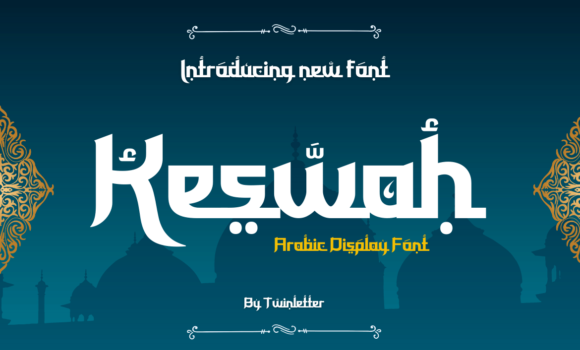
keswah
Keswah Font - Featured Image
Keswah Font – Free Download Introduction to Keswah Font Keswah is a calligraphic display font inspired by the heritage of Middle Eastern typography. 📸 Preview Gallery 6 images 📌 Product Name Keswah Font 👤 Author twinletter 📂 Category Explore ⬇️